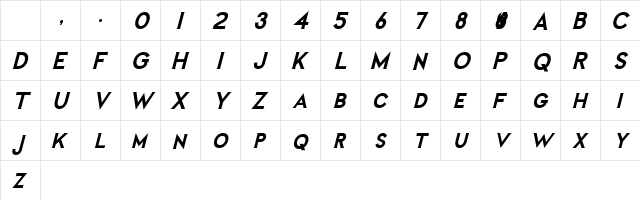
Complete Arena Of God Italic glyph index. Displaying only characters natively supported by Arena Of God Italic font.
Arena Of God is a composed and adaptable typeface that performs quietly and consistently across a wide range of design contexts. The slanted form adds forward momentum and visual energy.
Pro Tip: Use Arena Of God for emphasis, pull quotes, and subheadings where its slanted energy can add rhythm to the layout.